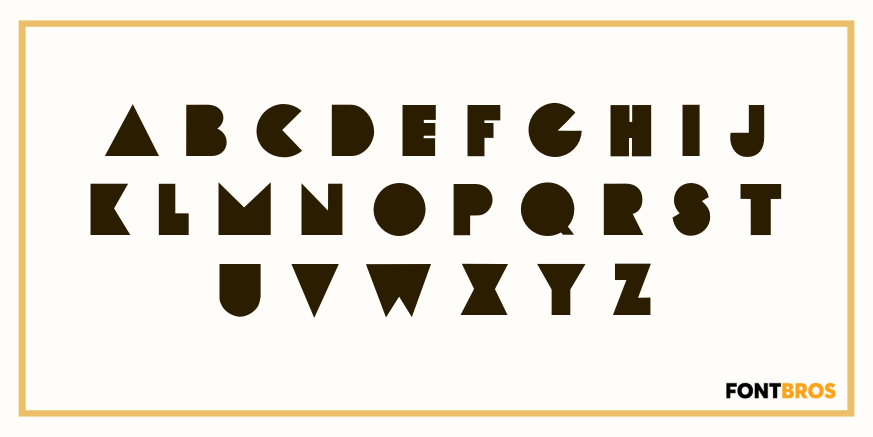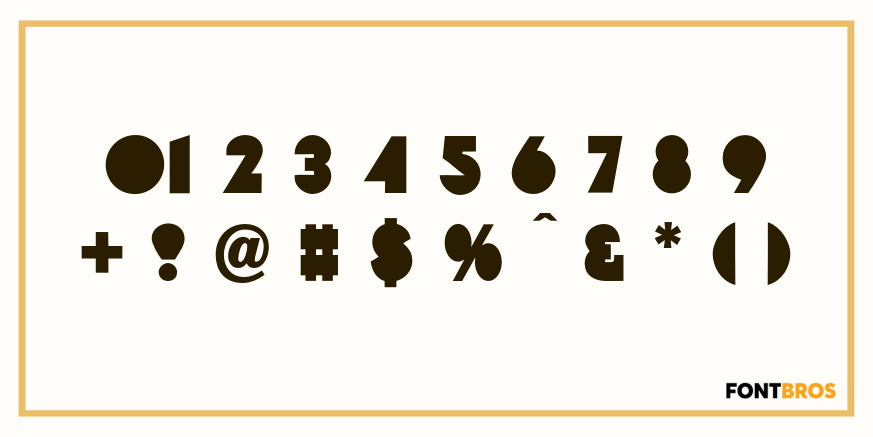
Theda Bara
Theda Bara is a single-style display face from Solotype with a distinctly Art Deco look. Its all-caps design, geometric construction, sharp apexes, and high-contrast forms create a streamlined, vintage impression that feels rooted in the 1920s and 1930s.
Details like circular counters, vertical inline cuts, and stencil-like breaks give it a graphic, poster-ready character. The result is bold and decorative without feeling overly ornate, making it a strong choice when you want lettering with period style and crisp structure.
With one Regular style in the family, this font is especially well suited to display work such as posters, branding, signage, packaging, and other headline applications where an Art Deco voice can take center stage.